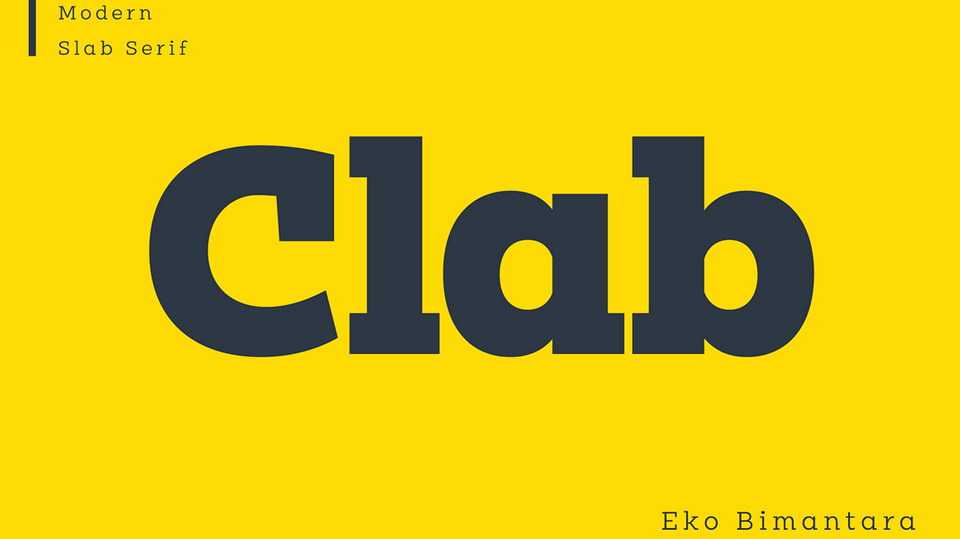
Download Clab typeface, a modern slab serif font family in 9 weights designed for branding. The initial characters were build in bold and chunky personality, yet the thin strokes and flowy italics gives it a versatile and unique set of family.